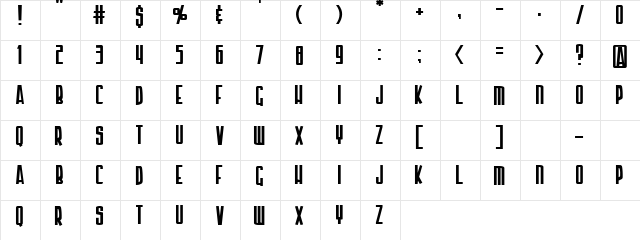
Com on Rom Regular
Design Context for Com on Rom Typeface
Com on Rom is a composed and adaptable typeface that performs quietly and consistently across a wide range of design contexts.